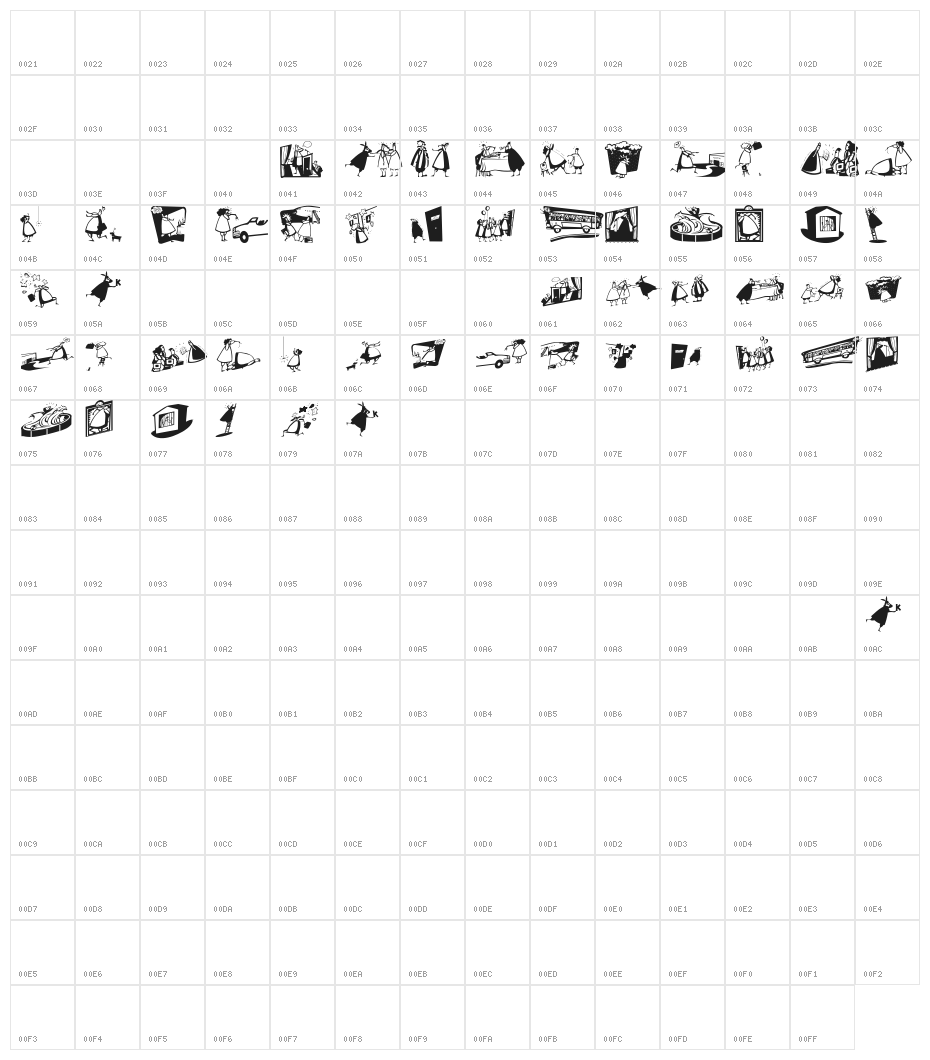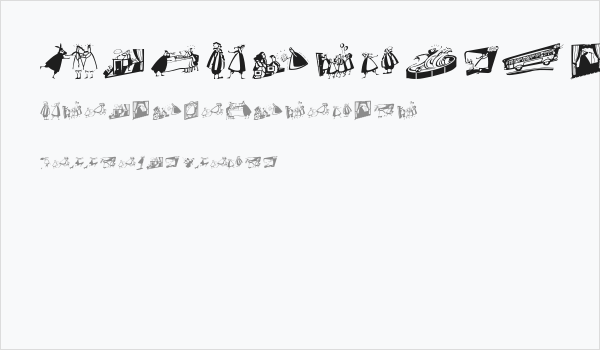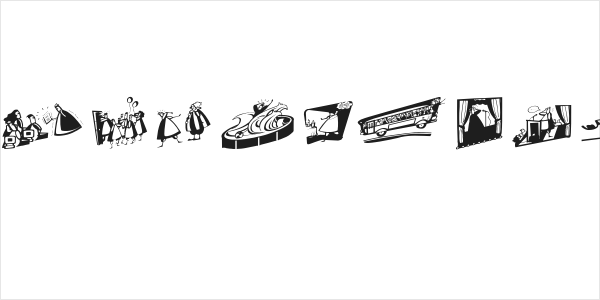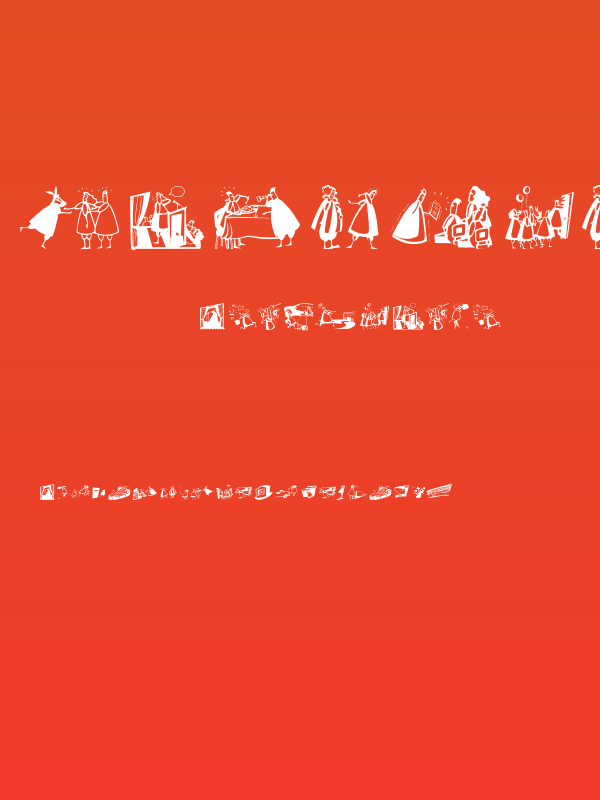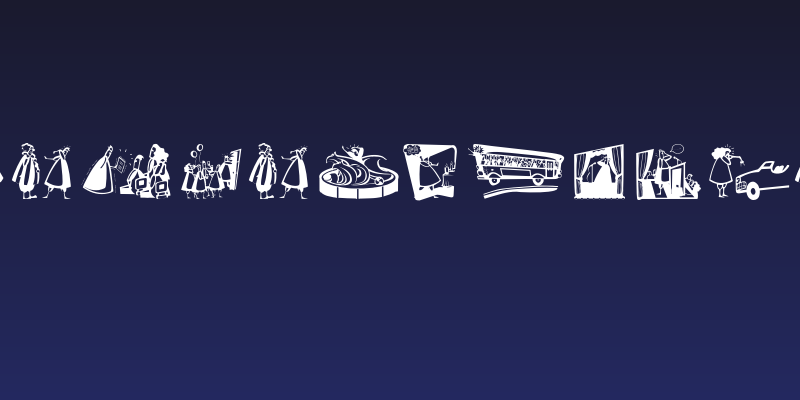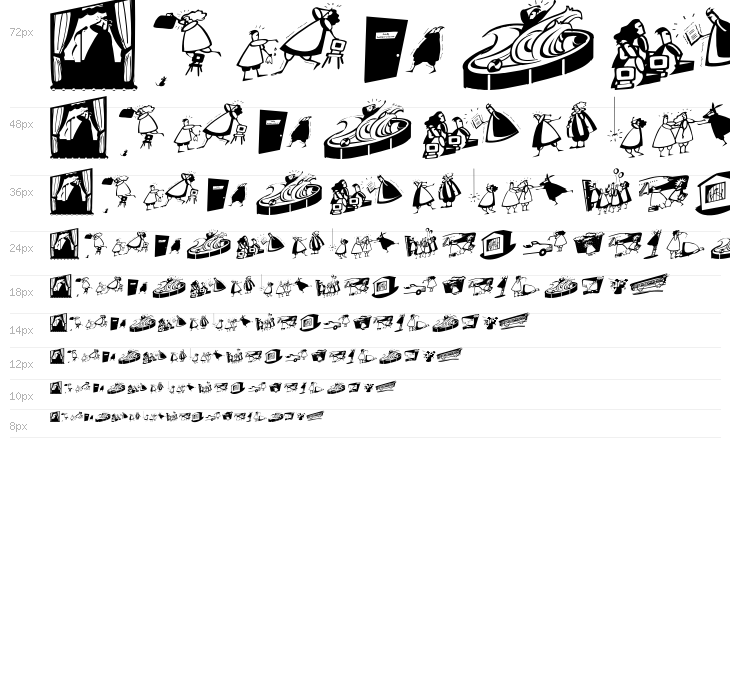
BadCircumstances Font
BadCircumstances Description
| Overall Style | Decorative, Whimsical, Cartoonish |
| Use Case | Illustrative elements, Themed graphics, Decorative accents |
| Proposed Projects | Greeting cards, comic strips, posters, educational materials, novelty invitations. |